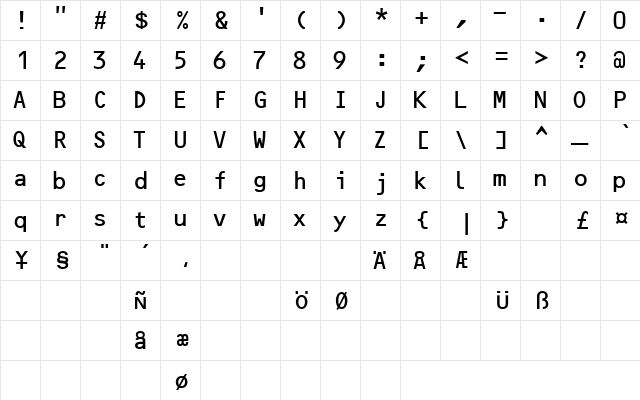
OCR2SSK Regular
Design Context for OCR2SSK Typeface
OCR2SSK offers clean, dependable letterforms without strong stylistic allegiance, making it a practical choice for designers who need flexibility.
Pro Tip: Use OCR2SSK in both headline and body roles to test its range before committing to a single application.